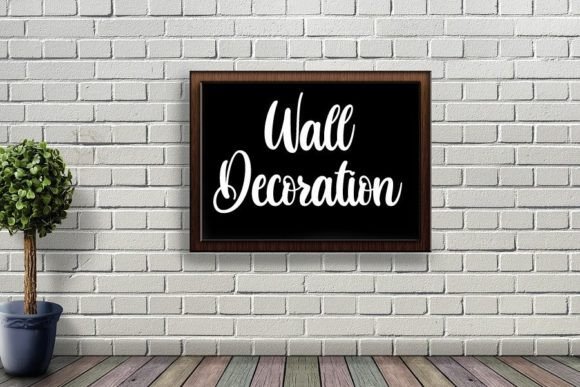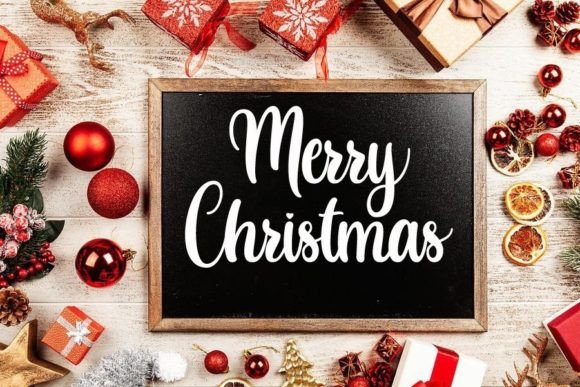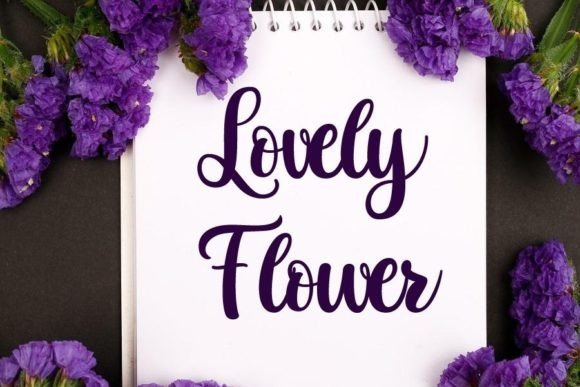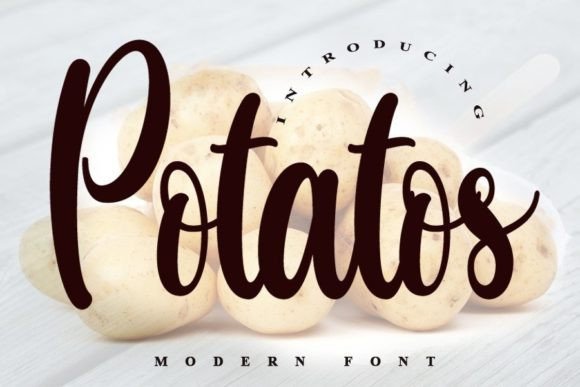
Introduction to Potatos Font
Potatos is a fresh and beautiful handwritten font perfect for designs such as Youtube banners, covers, logos, mockups, wedding invitations, cards, flyers, and crafts.
Use this simple and unique font, and your business will progress and develop .
Potatos Font offers exceptional quality and versatility, making it a valuable addition to your design toolkit. Whether you’re creating for personal projects or commercial use, Potatos Font delivers professional results.